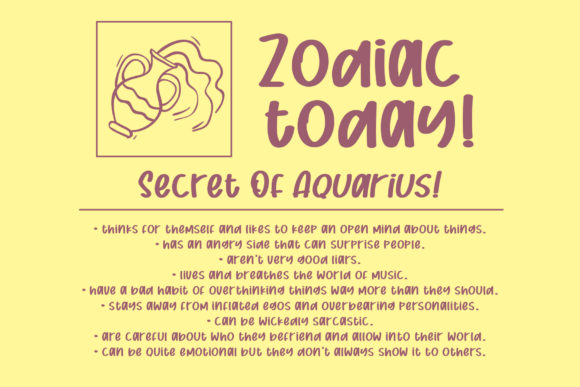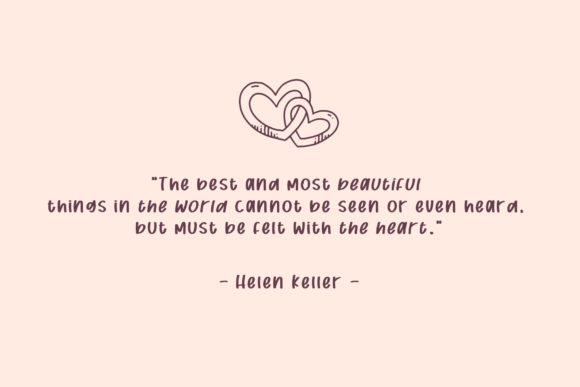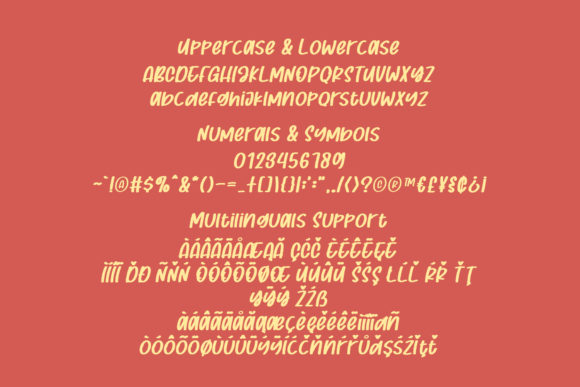
About Strawberry Bubblegum Font
Strawberry Bubblegum is a delightful and playful handwritten font that exudes a childlike charm. With its whimsical and bubbly letterforms, this font is perfect for adding a touch of fun and excitement to any kids and school-related projects.
The playful nature of Strawberry Bubblegum makes it an ideal choice for designs targeted at children. Whether you’re creating educational materials, book covers, posters, or invitations for a kids’ party, this font will instantly capture their attention and spark their imagination. Its lively and energetic style adds a sense of joy and enthusiasm to the overall design.
The handwritten quality of Strawberry Bubblegum gives it a personal and organic feel, as if it were created by a child with a marker or crayon. This adds a sense of authenticity and warmth to your designs, making them more relatable and engaging. The imperfect and rounded letterforms create a sense of whimsy and playfulness, reflecting the carefree nature of childhood.
In addition to kids’ projects, Strawberry Bubblegum can also be used in various other design contexts. It works well for creating eye-catching headlines, social media graphics, logos, and branding materials that require a touch of youthful energy and creativity. Its fun and casual style make it suitable for projects targeting a wide range of audiences and industries.
When using Strawberry Bubblegum, you have the freedom to get creative and experiment with different color combinations, layering effects, and playful layouts. Its childlike playfulness allows you to create designs that are visually appealing and capture the essence of childhood joy.
In summary, Strawberry Bubblegum is a fun and playful handwritten font that adds a touch of childlike charm to your designs. Whether you’re working on kids and school projects or need to inject a sense of playfulness into your designs, this font will brighten them up and create a delightful experience for your audience.